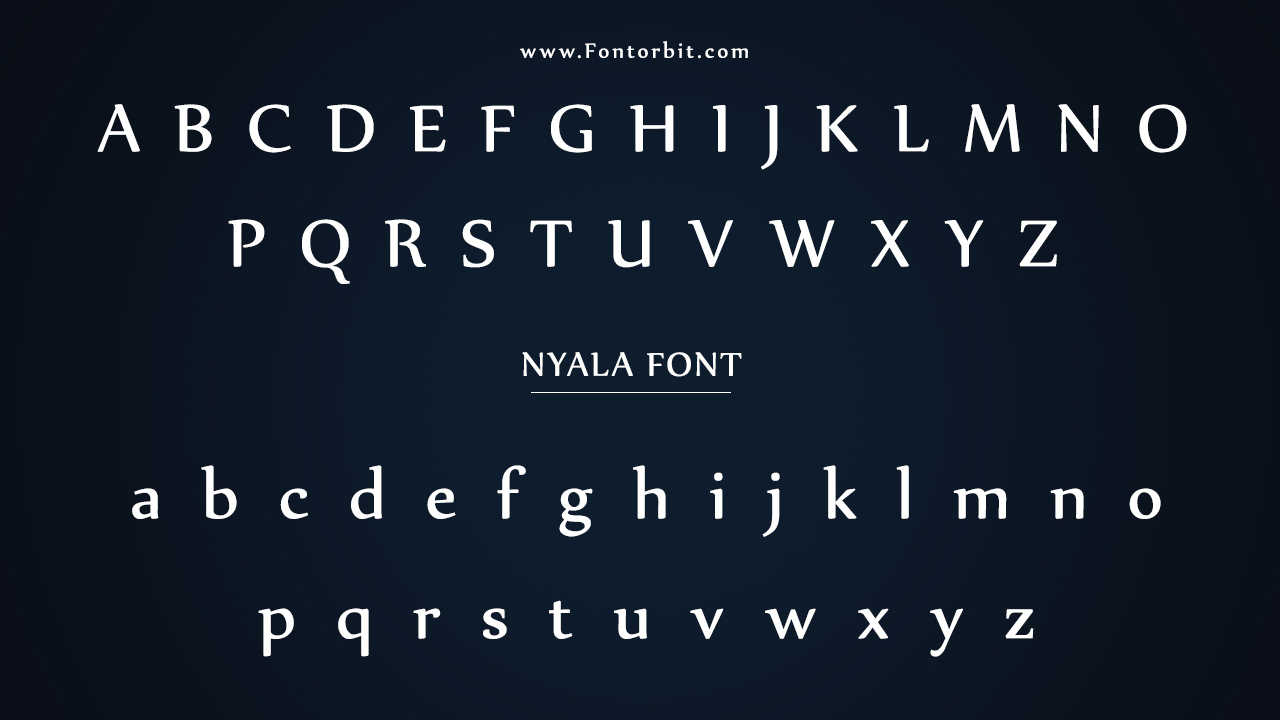
John Hudson and Geraldine Wade designed Nyala, a distinctive display typeface released in 2003 and published by Microsoft. The font draws inspiration from the Nyala antelope, which is native to the Ethiopian uplands.” The font offers a unique blend of modern readability and stylistic flair, making it suitable for a variety of design projects.
Nyala Family Includes
This versatile font family consists of four distinct weights, each designed to enhance visual impact:
- Nyala Regular
- Nyala Medium
- Nyala Bold
- Nyala Italic
Notable Uses Of Nyala Font
Nyala has gained popularity across various platforms and projects. It is frequently utilized in:
- Microsoft products, including Windows and Office applications
- Logos and branding materials
- Posters and advertisements
- PowerPoint presentations
- Social media graphics
- Official documents and reports
Given its stylish yet professional appearance, Nyala is ideal for:
- Creating eye-catching logos and marketing materials
- Designing invitations and business cards
- Developing website headlines and templates
- Crafting reports, articles, and academic papers
- Enhancing presentations with visually engaging content
1.What Type Of Font Is Nyala?
Nyala is a display font designed in 2003 by John Hudson for Microsoft.
2.What Are The Different Weights Available In The Nyala Family?
The family includes Regular, Medium, Bold, and Italic weights.
5.Where Can I Use The Nyala Font?
You can use it in logos, presentations, posters, and more.